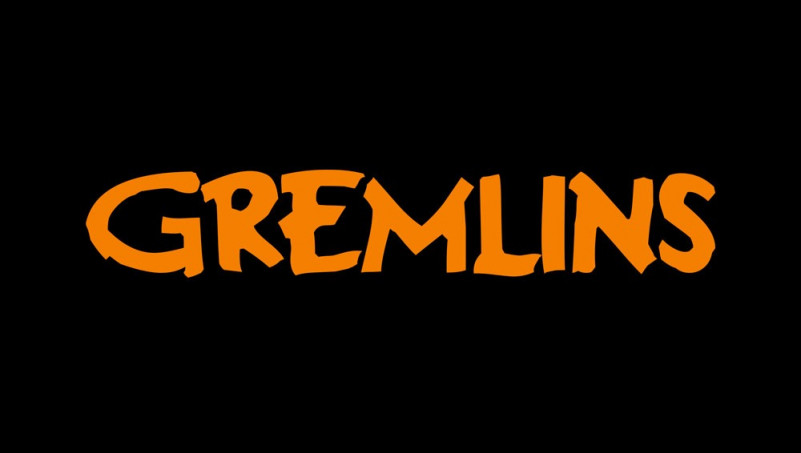
Gremlins Font
Gremlins Font is the font used in the Gremlins logo. This font is designed by The Flea Pit. You can use the font in your personal projects. Simply download it from the link below.
Gremlins is a comedy horror movie. The screenplay for this film is written by Chris Columbus, the well-known American filmmaker and it is directed by Joe Dante, the American director who often mixed fantastical storylines with comedy elements. The plot is about a young man having a strange creature as his pet.
This creature named mogwai later spawns other creatures and they turn into destructive creatures. This young man breaking three rules unleashes a horde of monsters into a small town. Zach Galligan, Phoebe Cates, and Howie Mandel are among the stars of this film.
This film is produced by Michael Finnell is released on June 8, 1984, by Warner Bros. Gremlins was a commercial and critical success yet it was criticized for some violent sequences. The production budget for the film was $11 million and earned more than $148 domestically, it became one of the highest-grossing films of the year.
This film receiving critical praise holds an approval rating of 84% on the Rotten Tomatoes website with an average rating of 7.36/10. Gremlins were nominated for different awards and it won a few such as the best horror film, best director, and supporting actress awards. Gremlins 2: The New Batch is the sequel to this film which was released in 1990.